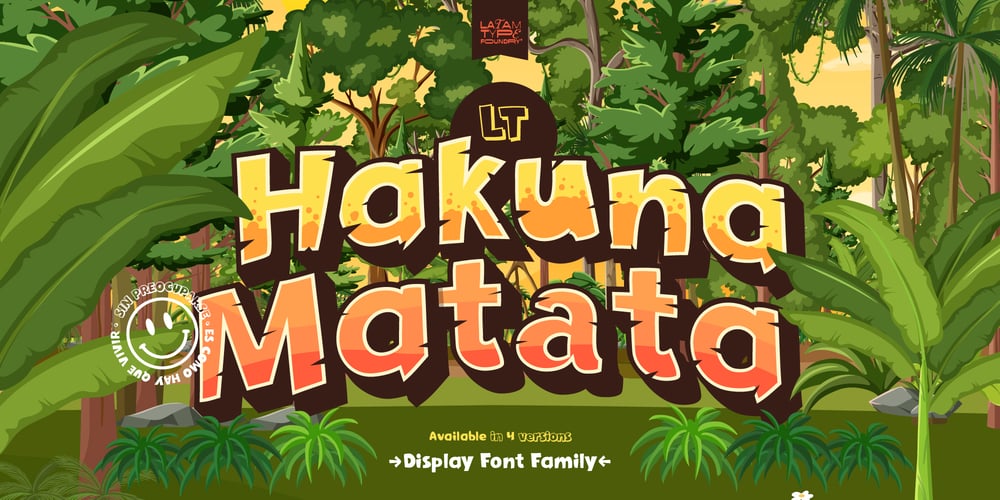
LT Hakuna Matata
LT Hakuna Matata font
LT Hakuna Matata Font Family was designed by nasser Araujo and published by Latam Type Foundry. LT Hakuna Matata contains 4 styles and family package options. Introducing “LT Hakuna Matata” font collection, inspired by The Classic Movie Lion King. Styles: Normal, Outline, Shadow, Ink. Captures Timon and Pumbaa’s essence. Normal exudes joy, Outline adds an artistic touch. Shadow creates depth, Ink offers handcrafted charm. Experience African savannah’s energy in typography.- Where typography meets the magic of The Lion King.Enjoy! Thank’s for Support!